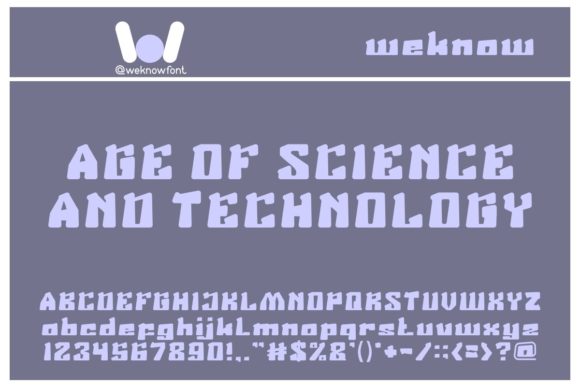
Journey into the realm of the future with Age of Science and Technology, a captivating display font that will propel your designs to new frontiers. Its sleek and futuristic curves evoke a sense of innovation and progress, making it the perfect choice for logos, headlines, and any project that demands a touch of the avant-garde.
Indulge in the precision and elegance of this font, a symphony of sharp angles and flowing lines that dance harmoniously across your creations. Age of Science and Technology is a masterpiece of digital typography, crafted to elevate your designs to unparalleled heights.
Unleash your imagination and embark on an artistic odyssey with Age of Science and Technology. From striking posters to eye-catching websites, this font will transform your ideas into captivating realities. Its versatility knows no bounds, adapting seamlessly to various design styles and industries.
As a creation of the renowned weknow, Age of Science and Technology carries the hallmark of excellence and innovation. Immerse yourself in a world of limitless creative possibilities, where this font becomes your faithful companion, guiding you towards design triumph.